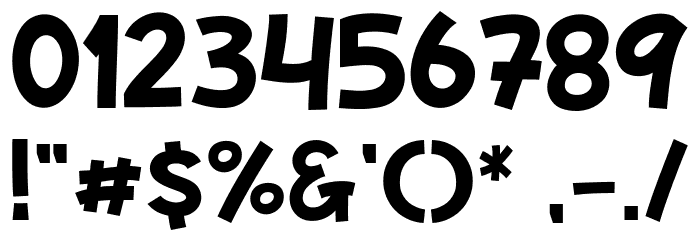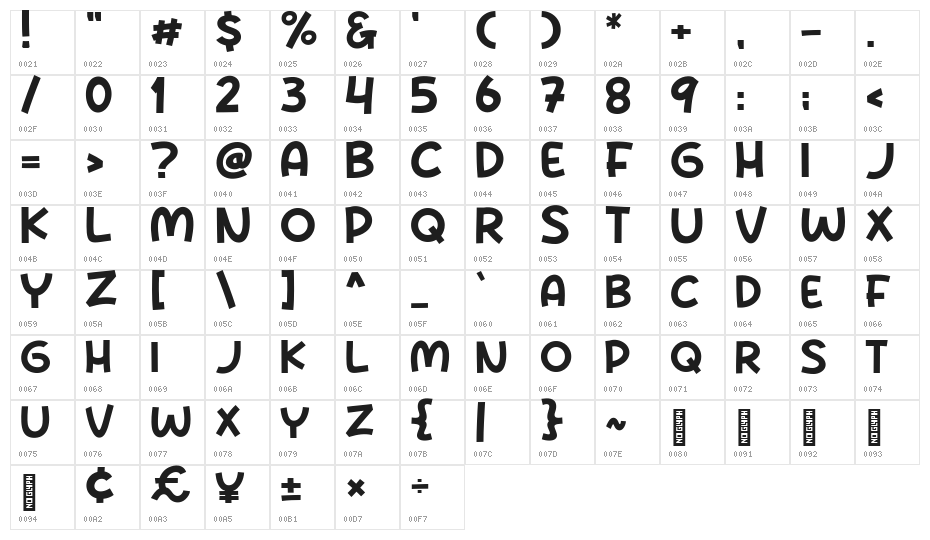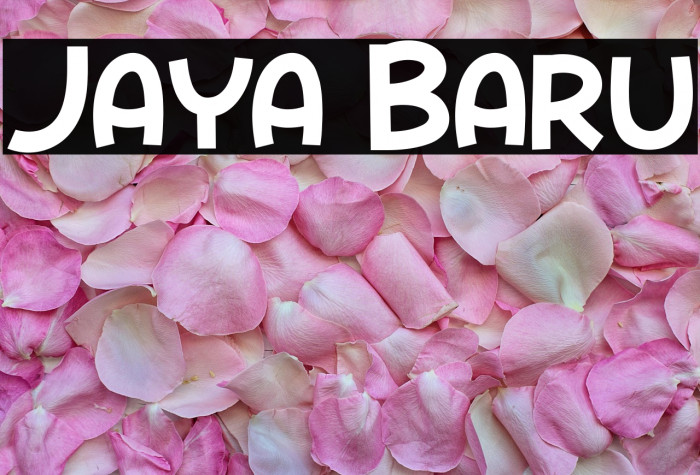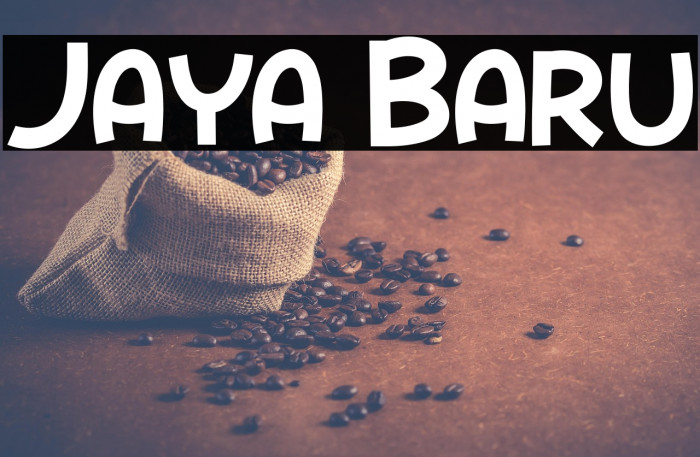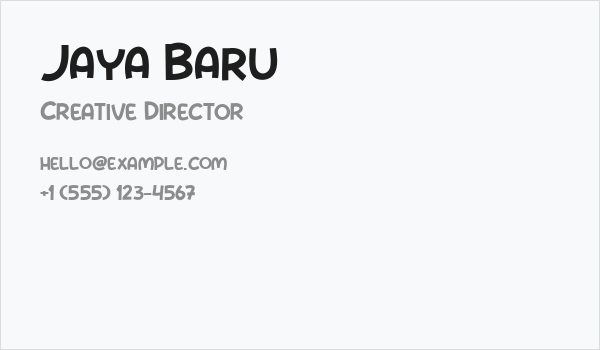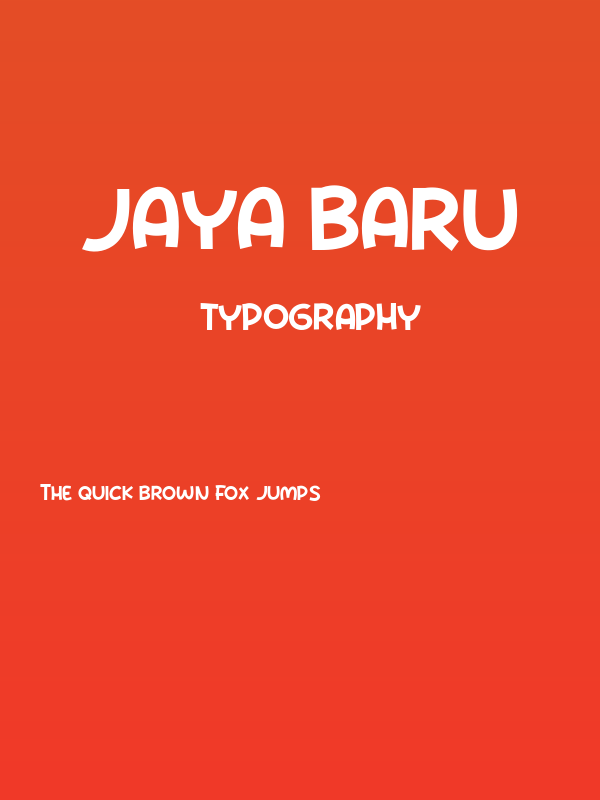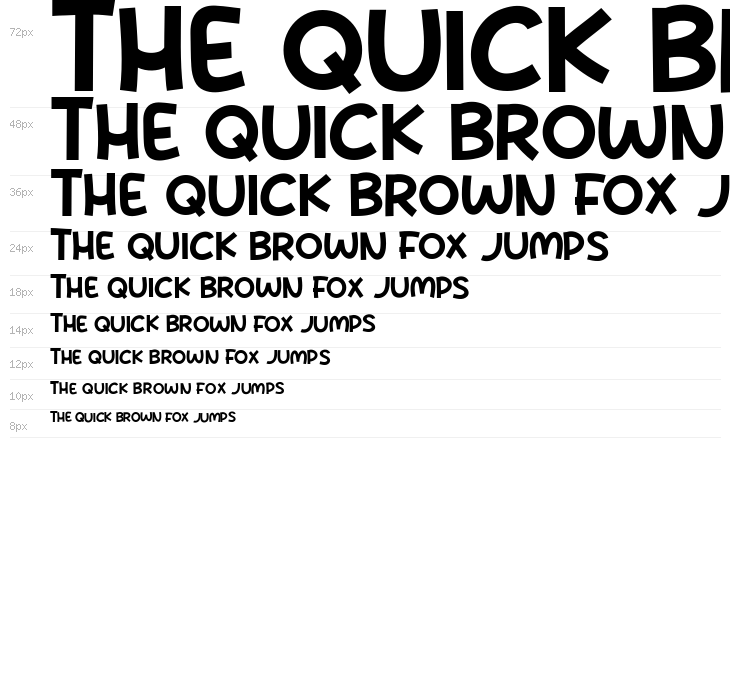
Jaya Baru Font
Jaya Baru Description
This font features a playful and bold style with a distinctively rounded and slightly irregular shape. The characters are thick and have a hand-drawn appearance, giving them a friendly and approachable feel. The uppercase and lowercase letters maintain a consistent style, with a slight slant that adds to the dynamic look. The numbers and special characters follow the same design principles, ensuring uniformity across all glyphs. This font's unique style makes it stand out, making it suitable for projects that require a fun and engaging typeface.
| Proposed Projects | Ideal for children's books, playful branding, posters, and social media graphics. |